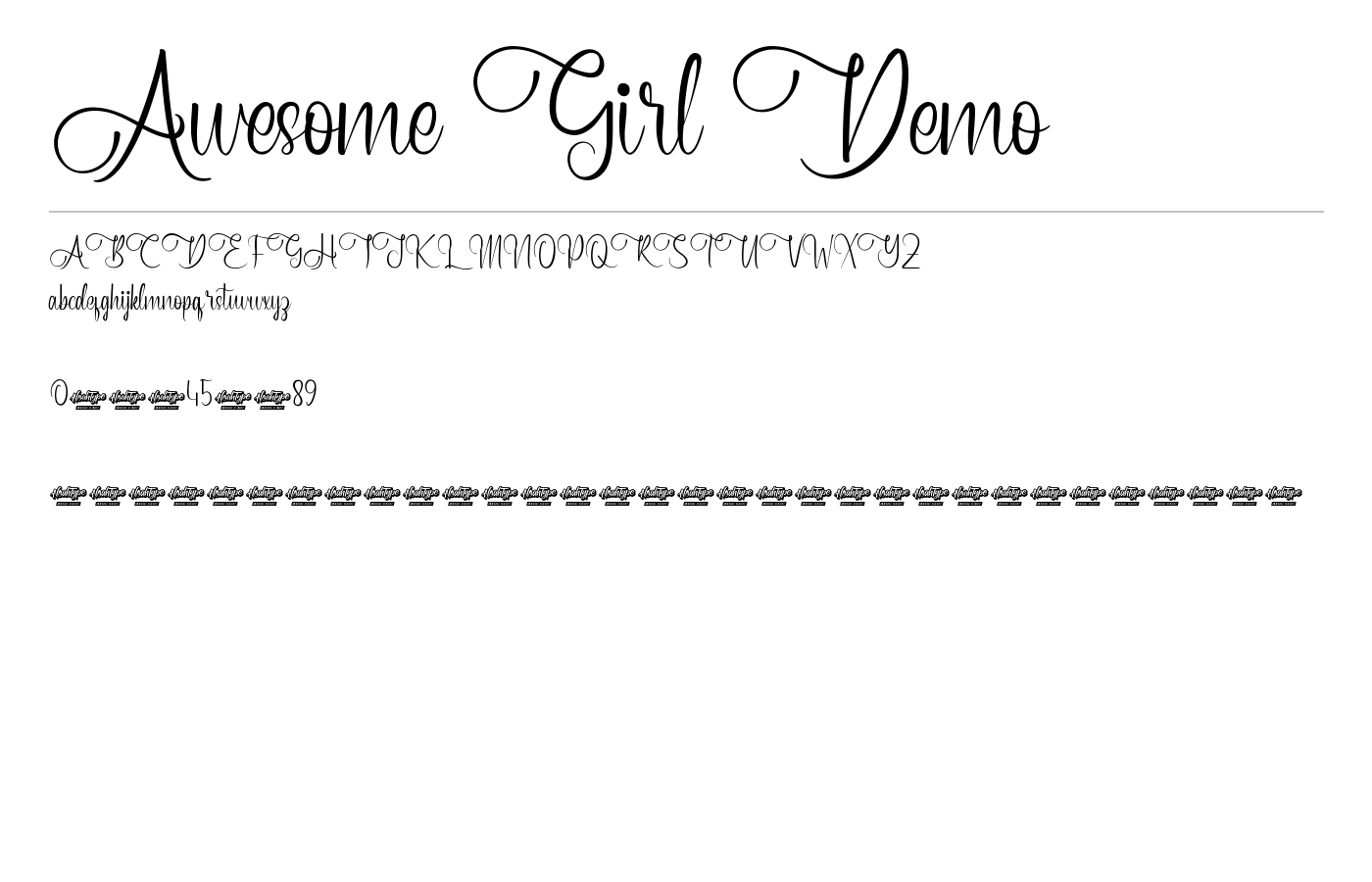
Awesome Girl Demo is an elegant, decorative script font with delicate, swirling strokes that give it a graceful and feminine touch. Its light weight and high contrast between thin lines and smooth curves create a charming, sophisticated style perfect for invitations, branding, and fashion-related designs. This font shines in creative contexts where a whimsical yet refined personality is desired.
Awesome Girl Demo Font
About Awesome Girl Demo Font
| Font family | Awesome Girl Demo Font |